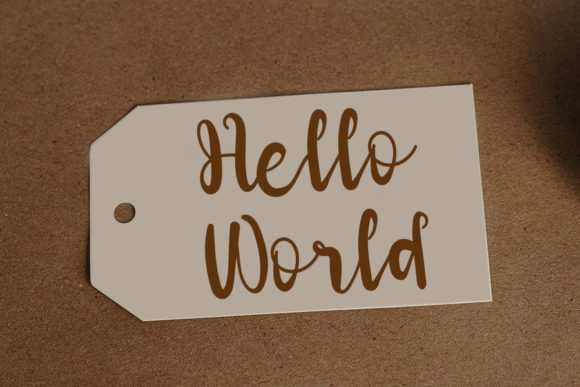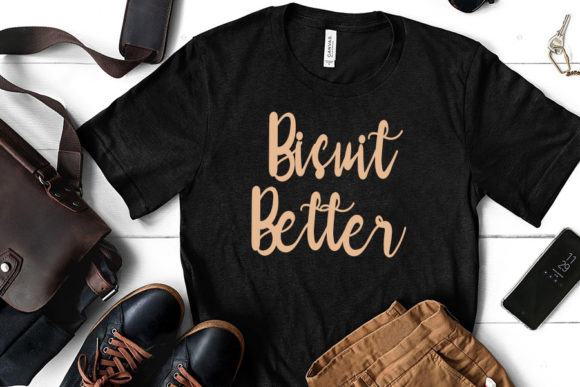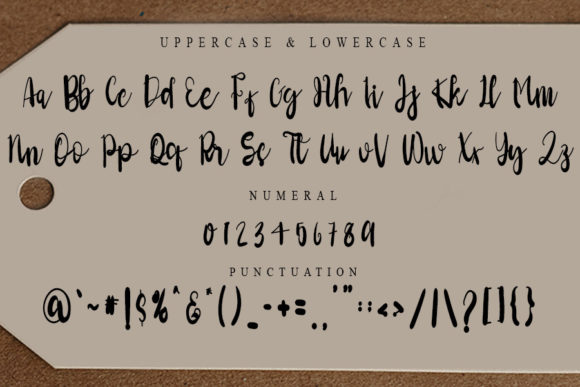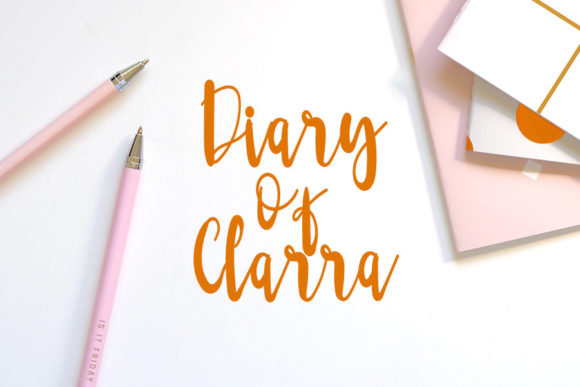
Discover the Sweet Charm of Hello Pineapple Font
Have you ever been in a creative rut, staring at a blank page, desperately searching for the perfect font to bring your vision to life? That’s where the magic happens. You type out a few words, and suddenly, the font you’ve been searching for appears, like a breath of fresh air, and everything falls into place. For many designers, this moment is a game-changer.
One such font that has captured the hearts of many is the Hello Pineapple Font. This delicate and cursive script font exudes sophistication and elegance, making it the perfect match for any project. With its stylish alternates and ligatures, the Hello Pineapple Font adds a touch of whimsy and personality to your designs.
Whether you’re a seasoned designer or just starting out, the Hello Pineapple Font is a valuable addition to your toolkit. Its versatility and charm make it an excellent choice for a wide range of projects, from wedding invitations to branding materials.
Hello Pineapple Font Key Features
- Unique Characteristics: The font features a unique blend of modern and playful elements, with distinctive letterforms and a touch of whimsy, making it perfect for creating eye-catching and memorable designs.
Designer Review: Hello Pineapple Font
First off, let me say that I really like the vibe of Hello Pineapple Font ✨. The unique blend of modern and vintage elements gives it a quirky, playful feel that’s perfect for creative projects. The font’s wide range of weights and styles also makes it incredibly versatile, allowing designers to experiment with different moods and atmospheres.
- The font’s irregularities and imperfections add a touch of handmade charm, making it stand out from more polished, commercial fonts ✨.
- The inclusion of alternate characters and swashes gives designers plenty of options for adding personality to their designs ✨.
- The font’s bold weights are particularly effective for creating eye-catching headlines and titles ✨.
However, I do have a few concerns about Hello Pineapple Font ⚠️. The font’s irregularities can sometimes make it difficult to read, especially in small sizes or when used for large blocks of text. Additionally, the font’s vintage aesthetic may not be to everyone’s taste, and some designers may find it too quirky or gimmicky.
Overall, I think Hello Pineapple Font is a great addition to any designer’s toolkit. While it may have some limitations, its unique personality and versatility make it a great choice for creative projects that need a little extra flair.
Use the Hello Pineapple Font to add a playful touch to your designs.
Pair it with bold colors and creative graphics for maximum impact.
Use the Hello Pineapple Font for:
- Children’s products and packaging
- Summer-themed designs and marketing materials
Alternatives to “Hello Pineapple Font” for Designers
Pacifico is a beautiful, elegant script font that is perfect for creating a sophisticated and luxurious feel in your designs. It is ideal for use in wedding invitations, branding, and packaging design. Pacifico has a similar feel to Hello Pineapple Font, but it is more refined and polished, making it a great choice for high-end designs.
Great Vibes is a fun, energetic script font that is perfect for creating a lively and playful atmosphere in your designs. It is ideal for use in social media graphics, advertisements, and promotional materials. Great Vibes has a similar carefree feel to Hello Pineapple Font, but it is more energetic and attention-grabbing.